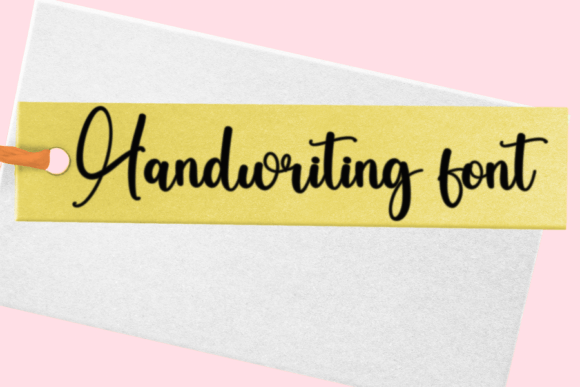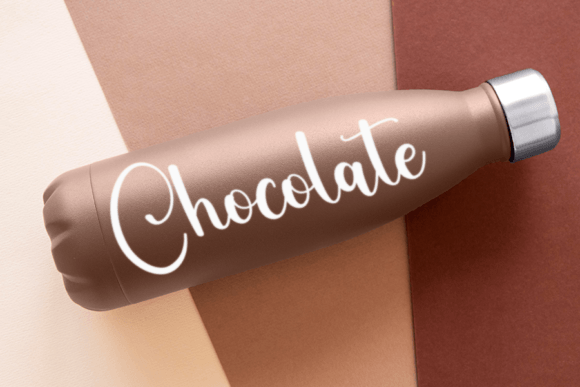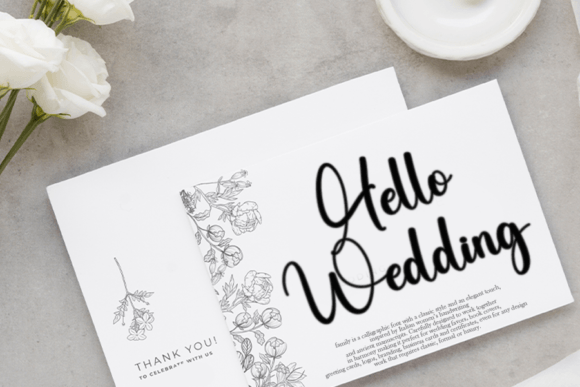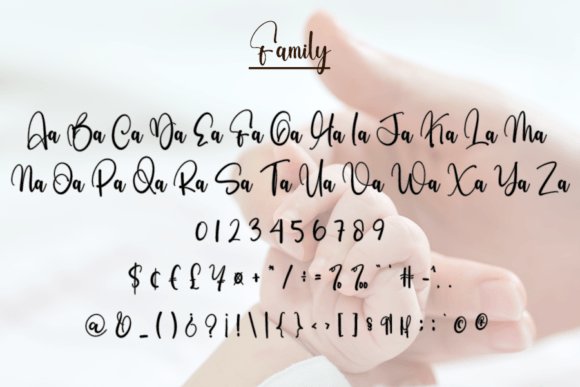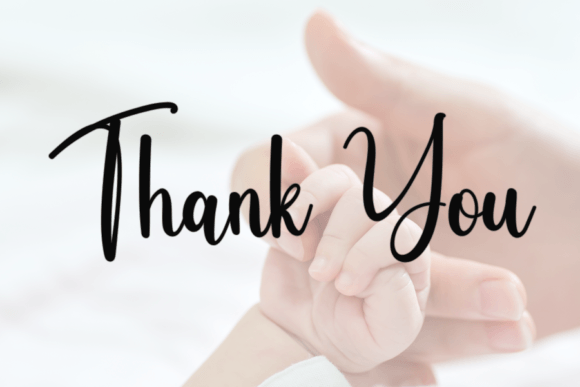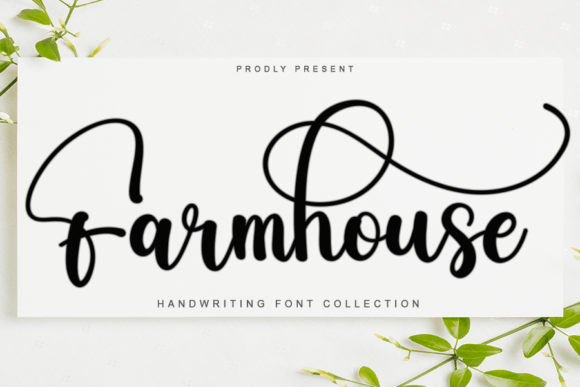
Embracing the Charm of Farmhouse Font: A Comprehensive Guide
When it comes to adding a touch of rustic charm and warmth to your designs, the Farmhouse font is an excellent choice. This beautiful, handwritten font style has gained immense popularity among designers, crafters, and DIY enthusiasts. In this article, we’ll explore the world of Farmhouse fonts, their characteristics, and how to use them effectively in various design projects.
Farmhouse font is a type of handwritten font that exudes a rustic, country feel. It’s characterized by its casual, yet elegant script, often featuring subtle imperfections and variations in lettering. This font style is reminiscent of traditional handwritten signs, invitations, and labels found in rural settings.
Characteristics of Farmhouse Font
Some common characteristics of Farmhouse fonts include:
- Handwritten script with a personal touch
- Rustic, country feel with a vintage vibe
- Subtle imperfections and variations in lettering
- Often features flourishes and swashes
- Can be used in various design projects, from digital to print
Uses of Farmhouse Font
Farmhouse font is incredibly versatile and can be used in a wide range of design projects, including:
- Wall displays and signage
- Social media post logos and graphics
- Advertisements and marketing materials
- Product packaging and labeling
- Product designs, such as ceramics, textiles, and crafts
- Photography watermarks and overlays
- Stationery and journaling
Tips for Using Farmhouse Font Effectively
To get the most out of Farmhouse font, follow these tips:
- Pair with complementary fonts: Combine Farmhouse font with simpler fonts to create visual interest and balance.
- Use in moderation: Avoid overusing Farmhouse font, as it can become overwhelming. Use it sparingly to add a touch of elegance and whimsy.
- Experiment with colors: Farmhouse font looks great in a range of colors, from earthy tones to bold brights. Experiment to find the perfect hue for your design.
- Pay attention to size: Use Farmhouse font in varying sizes to create visual hierarchy and emphasis.
Popular Farmhouse Font Styles
Some popular Farmhouse font styles include:
- Pacifico: A beautiful, modern script font with a relaxed feel.
- Great Vibes: A elegant, handwritten font with a vintage vibe.
- Lobster: A classic, script font with a sophisticated feel.
- Carolyna Pro: A lovely, handwritten font with a whimsical touch.
Farmhouse font is a versatile and charming font style that’s perfect for adding a touch of rustic elegance to your designs. With its casual, yet elegant script, it’s ideal for a wide range of projects, from wall displays to product packaging. By understanding the characteristics and uses of Farmhouse font, you can create beautiful, eye-catching designs that capture the essence of country charm.